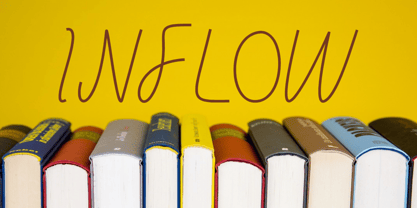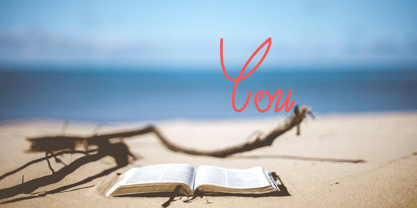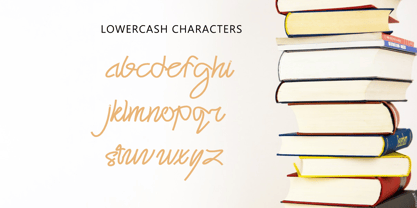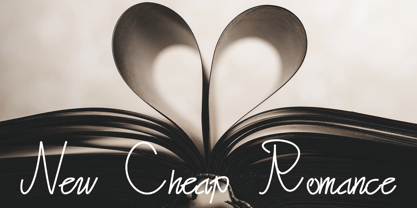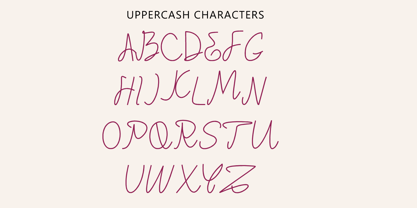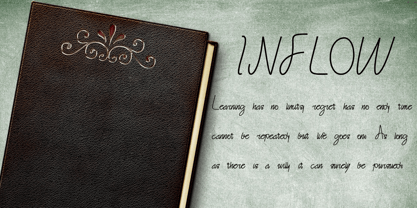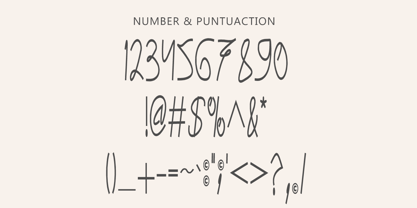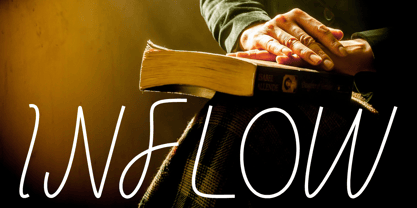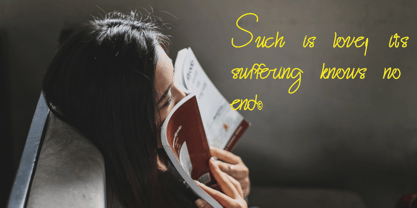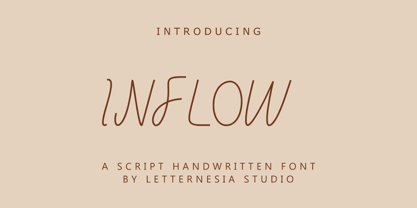
Inflow
Inflow is an elegant and versatile Latin script-style font. With smooth strokes that flow like natural handwriting, this font exudes a sophisticated yet approachable vibe. Its characters are designed with a blend of gentle curves and bold lines, making it ideal for various creative projects.
Key features of Inflow:
Uppercase letters: Embellished with classy decorative accents, perfect for headlines or branding.
Lowercase letters: Flow beautifully with seamless connections, creating a captivating visual rhythm.
Latin characteristics: Highlighting traditional forms tailored to a modern style.
Versatile: Suitable for invitation designs, logos, artistic typography, and promotional posters.
Inflow brings the beauty of handwriting to life with flexible styling that fits a wide range of themes, from formal to casual.